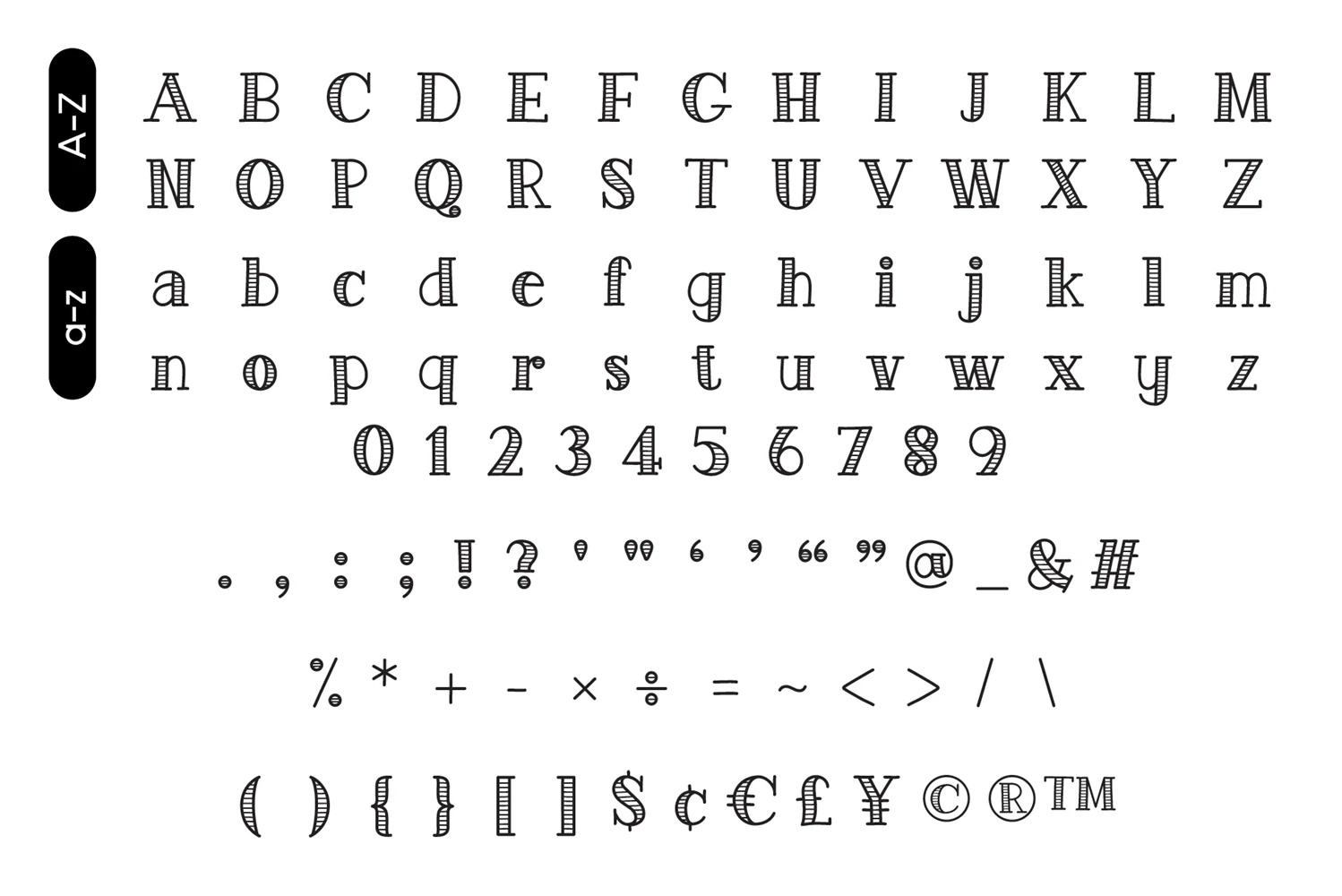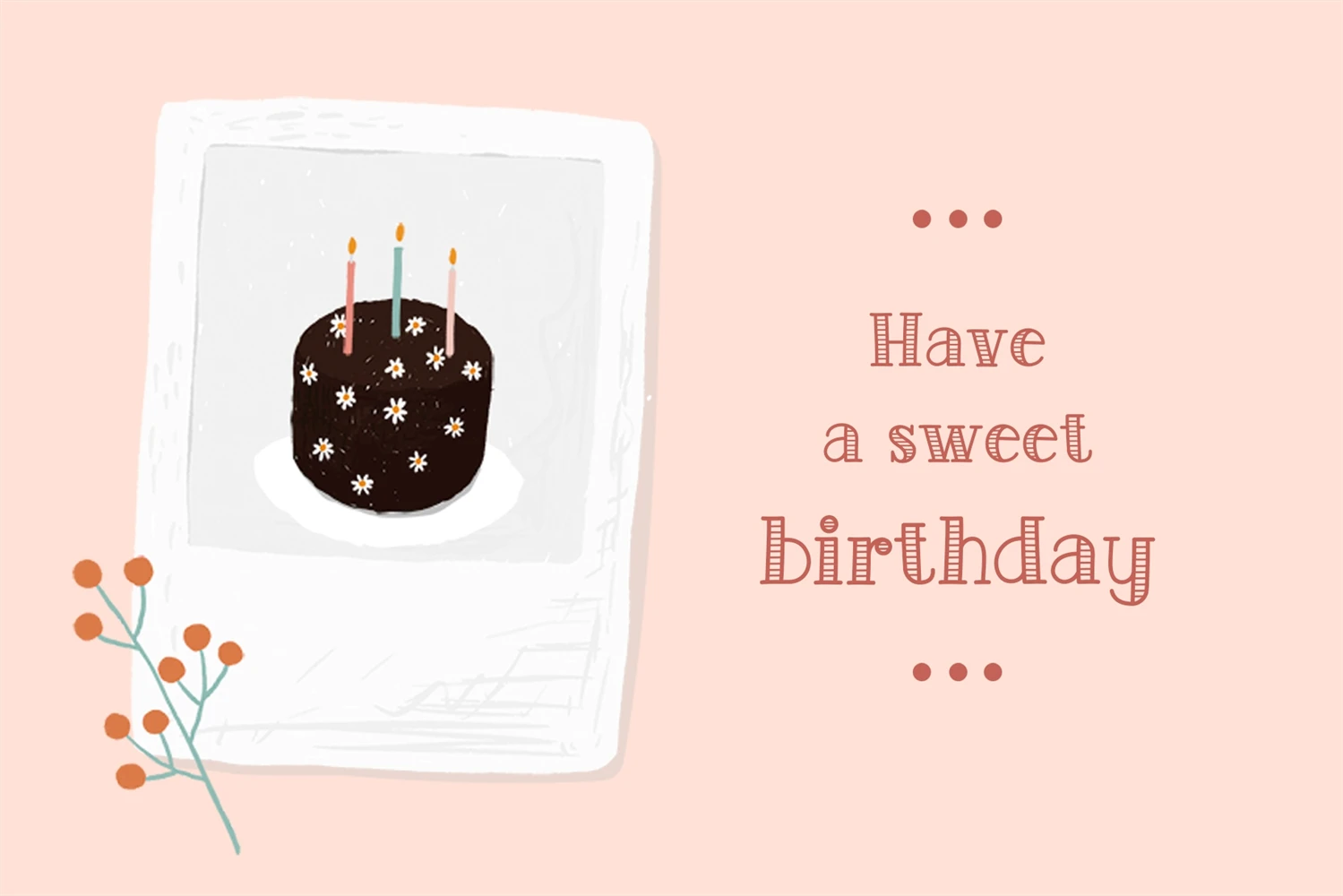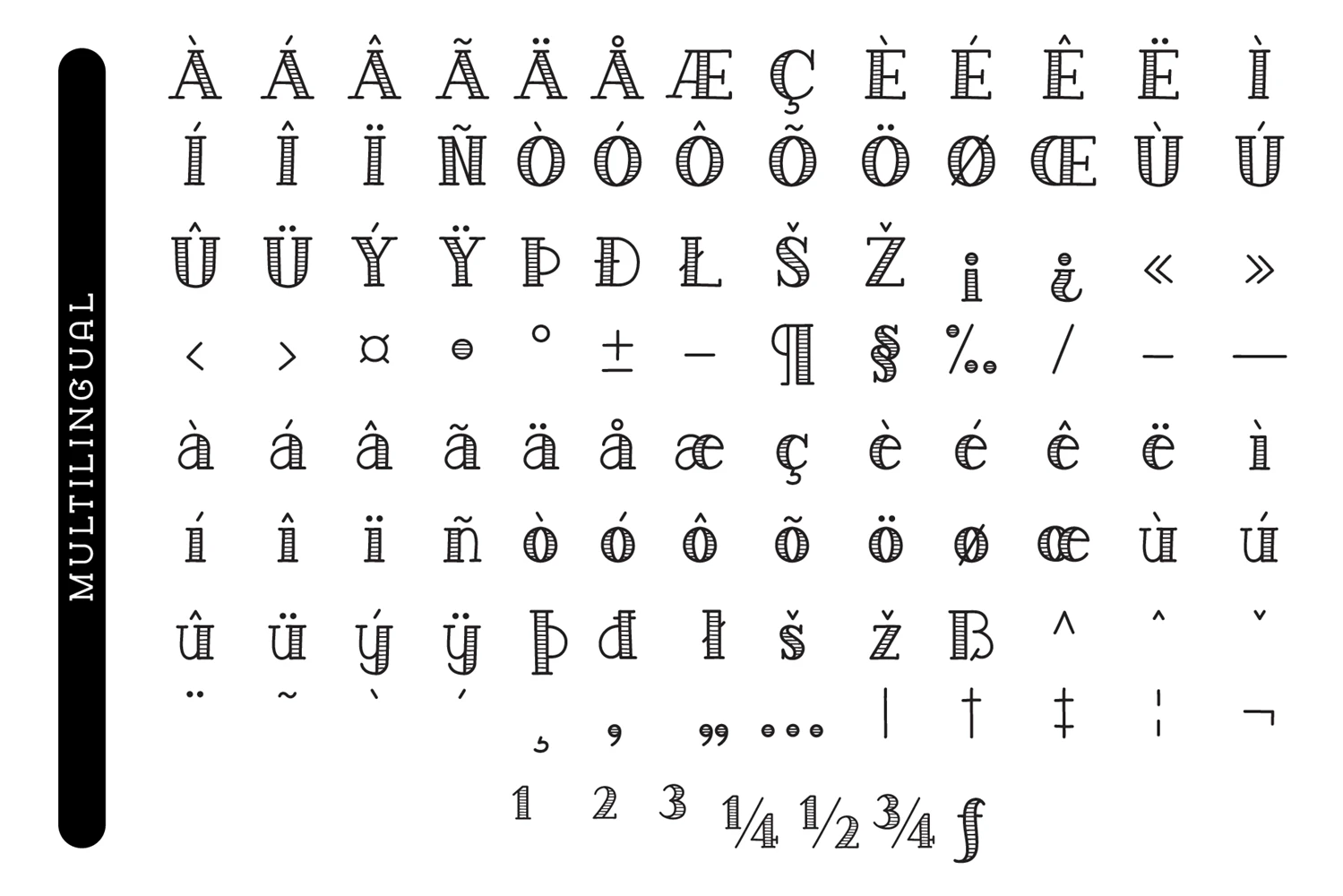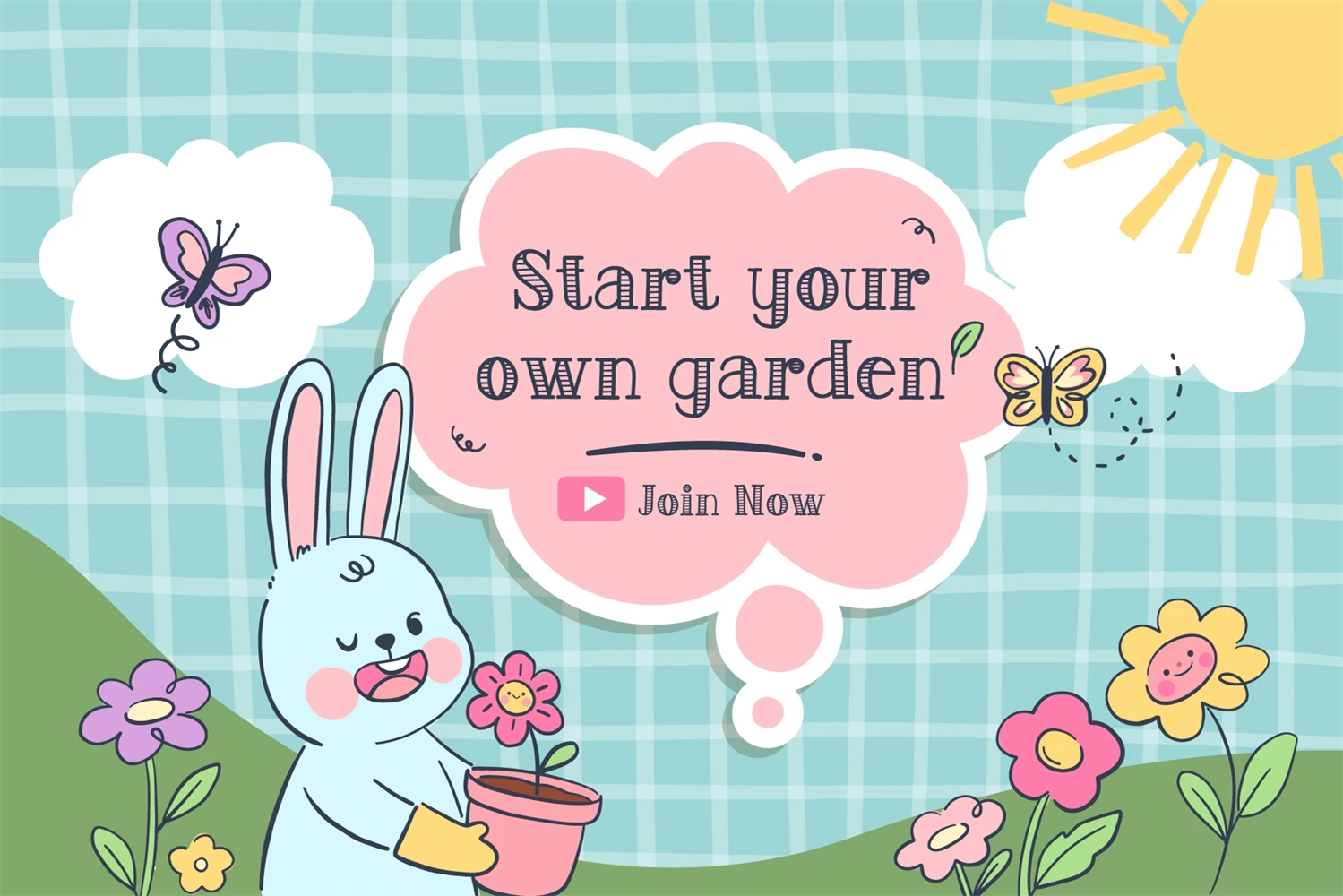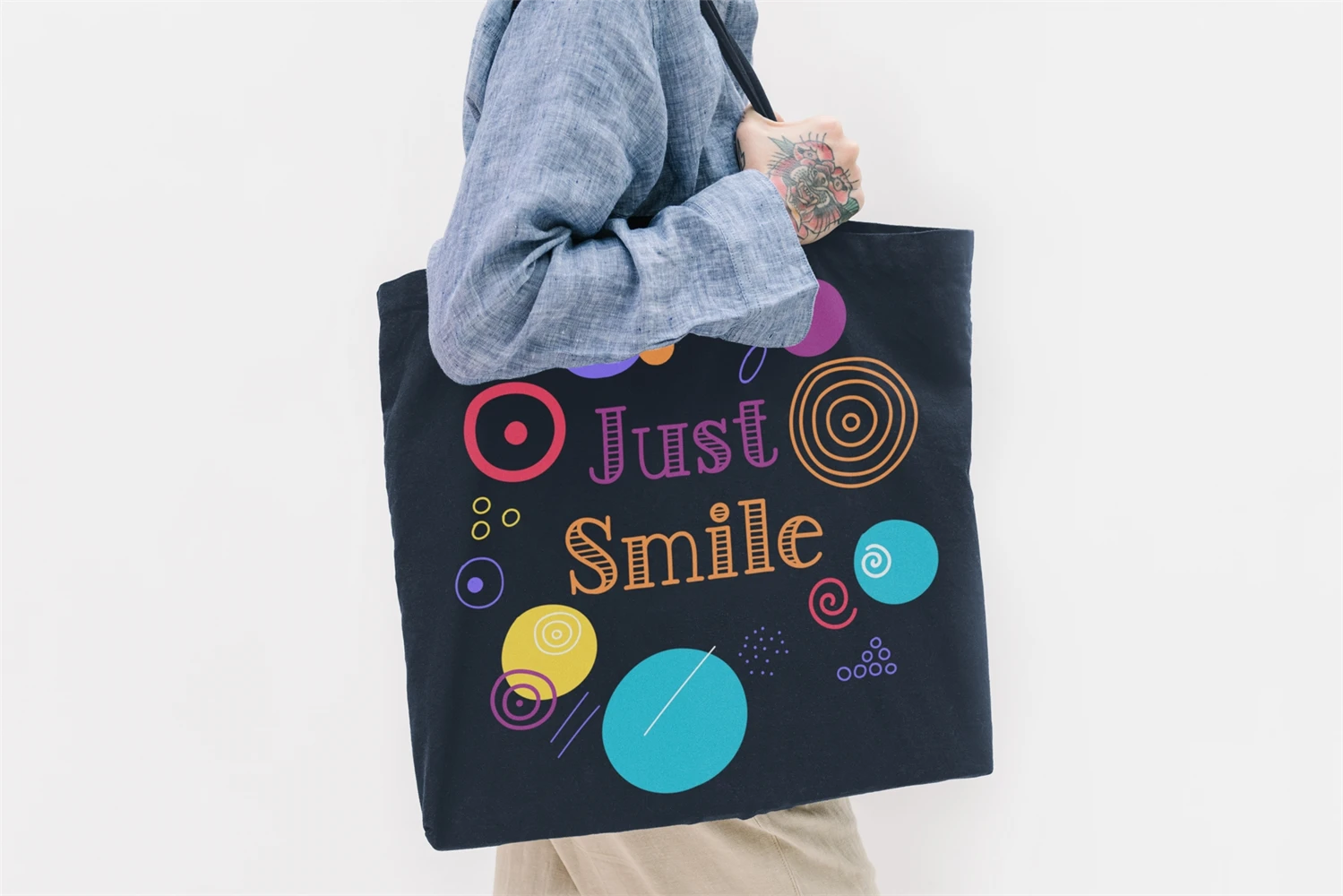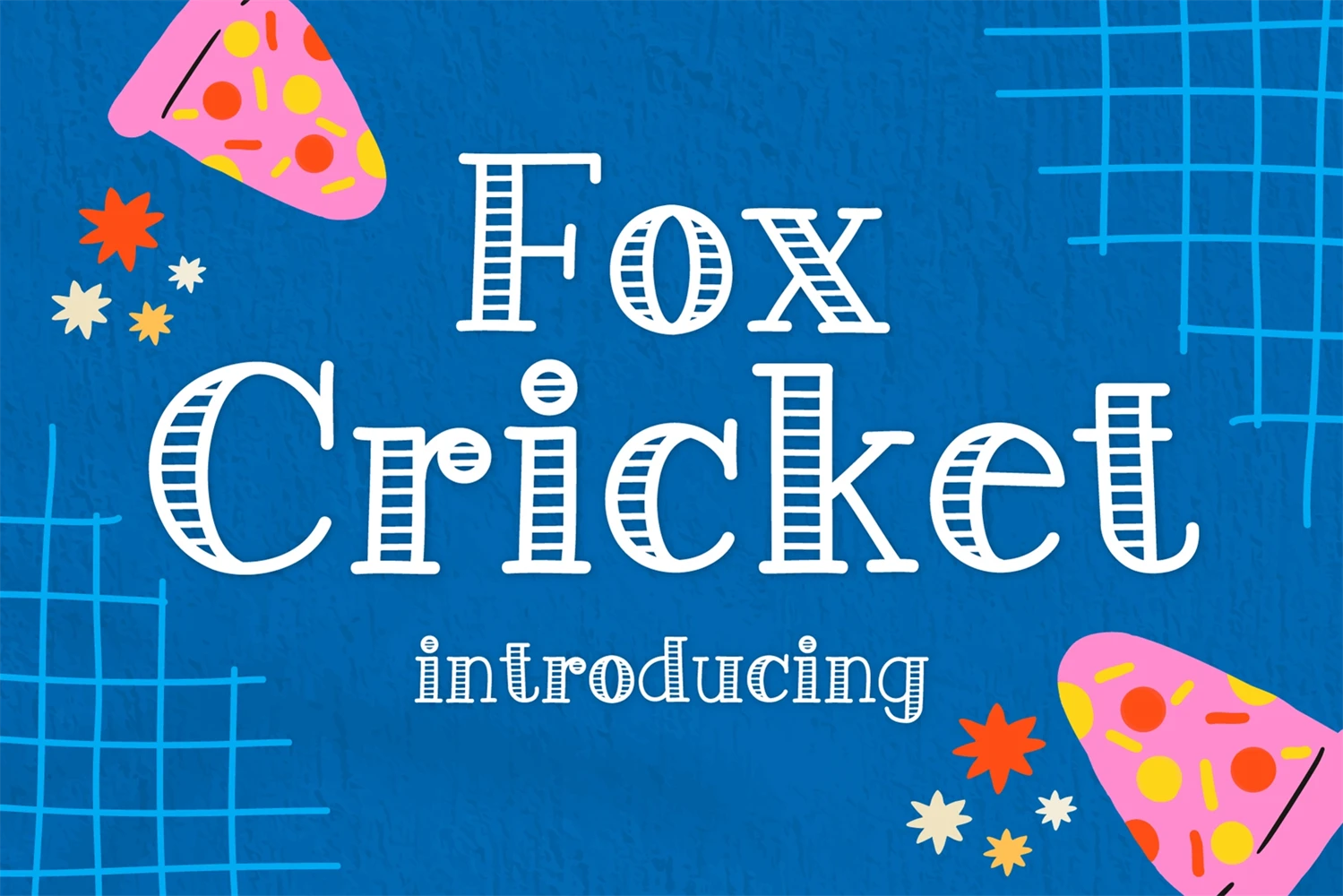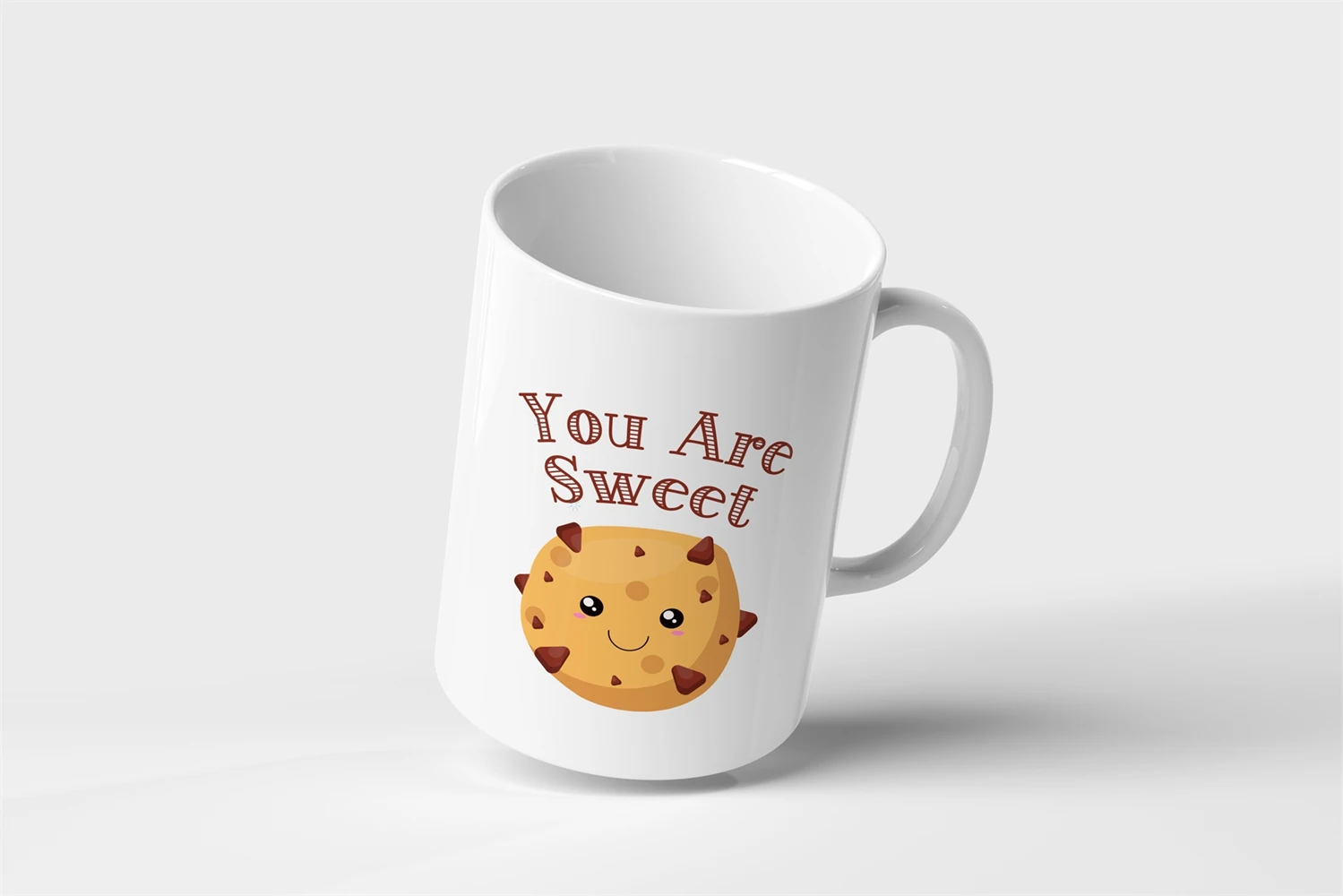
Fox Cricket font is a cute and fun Display font. It can be used in a variety of ways, whether its a childrens theme, a menu event, cards, or even a Halloween theme, it can be used very well. Add this beautiful display font to each of your creative ideas, and notice how it makes them stand out!